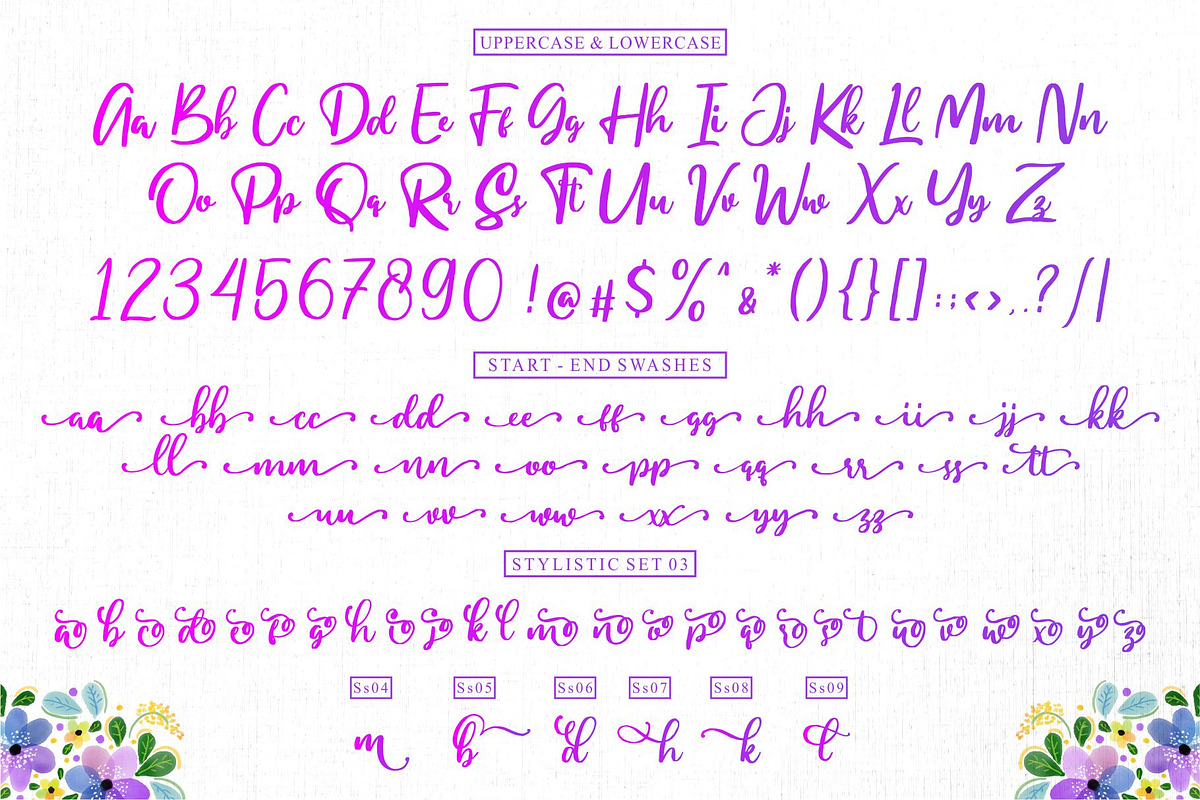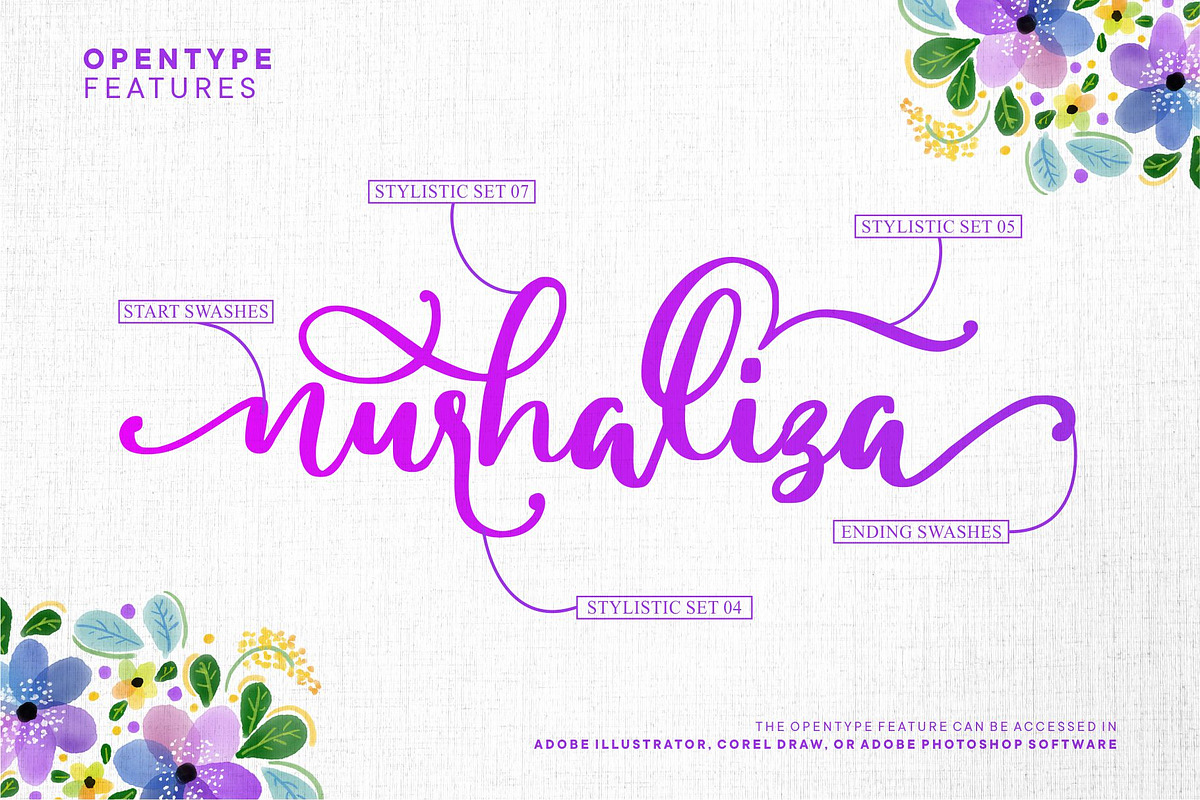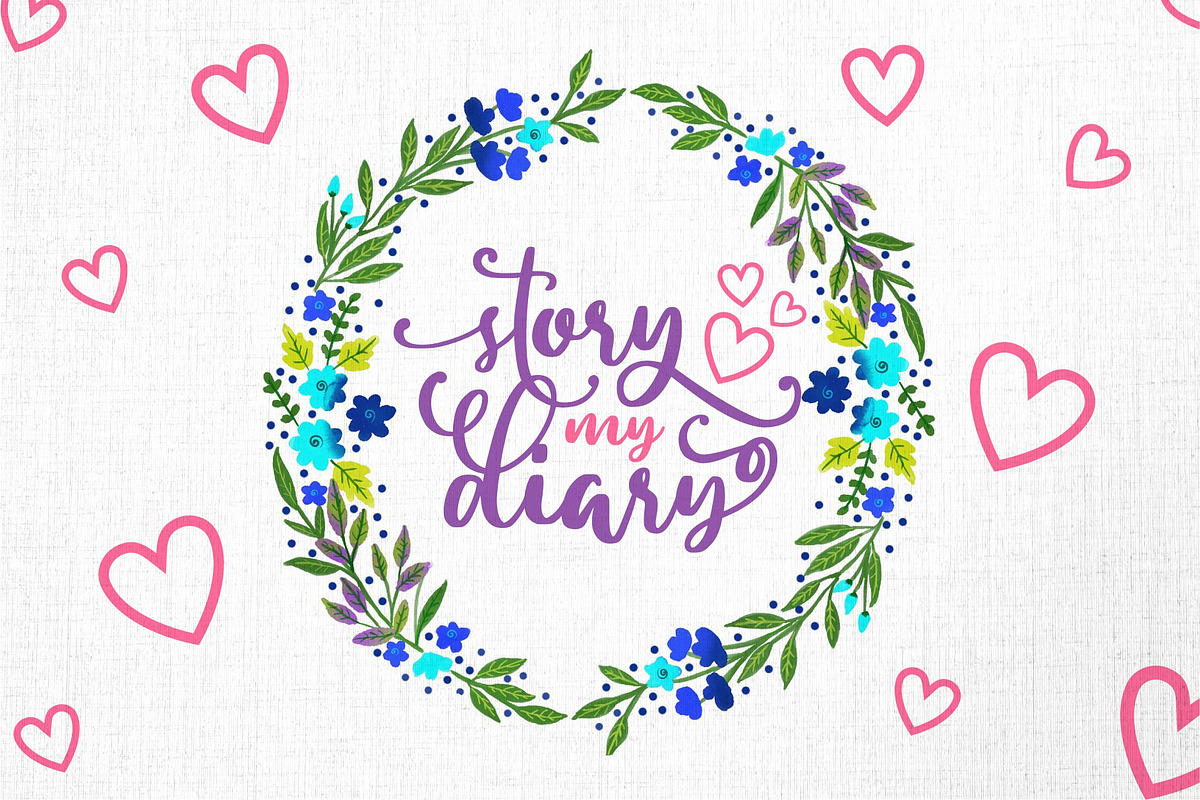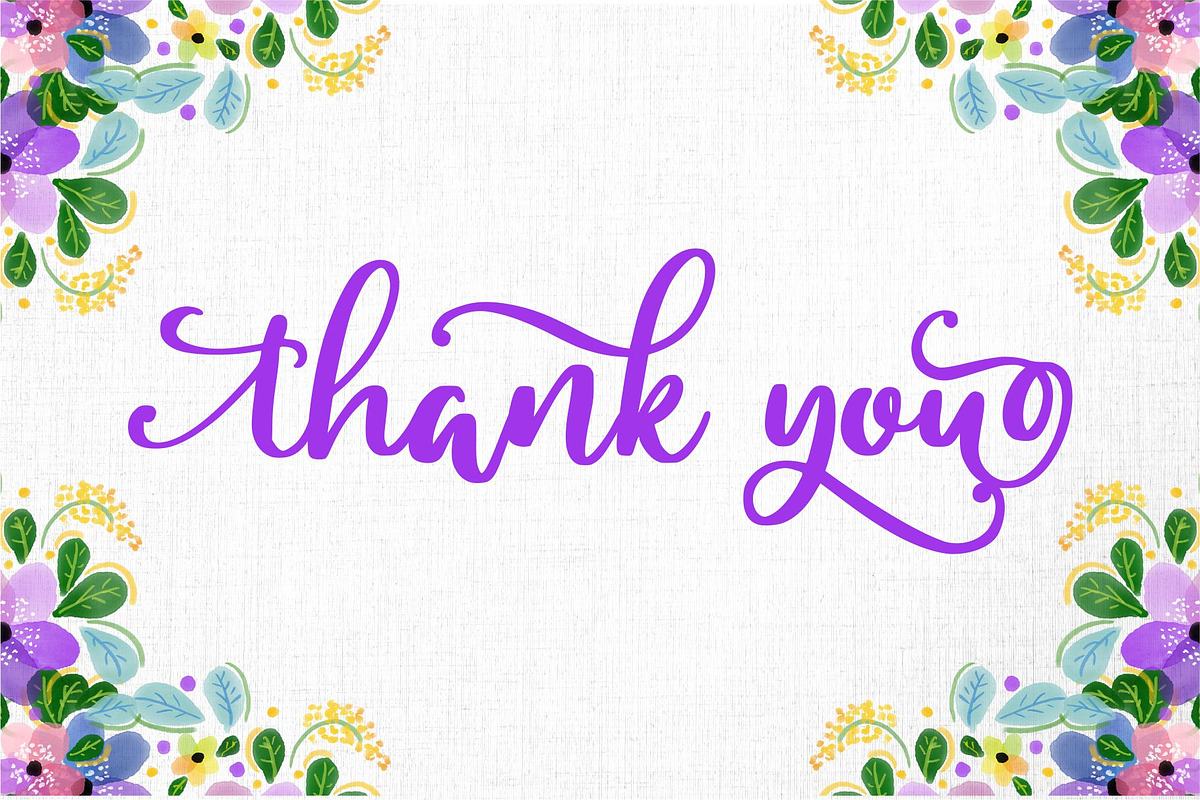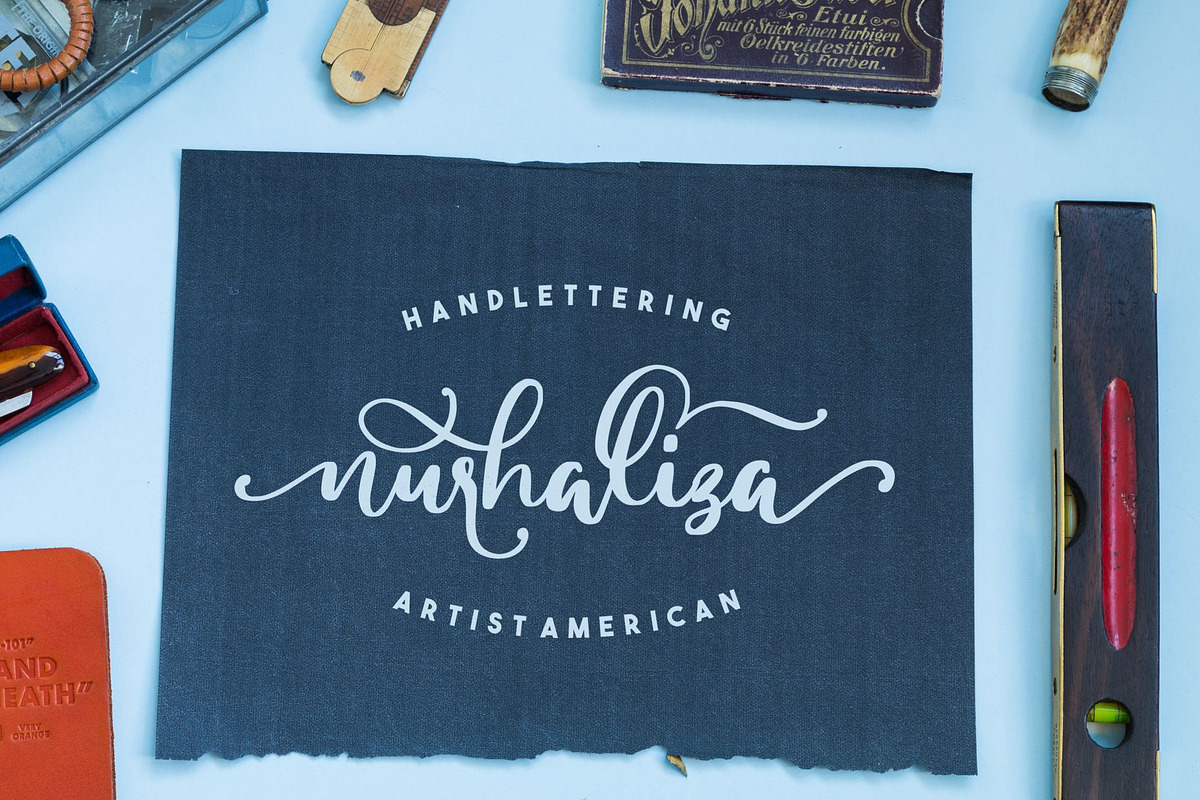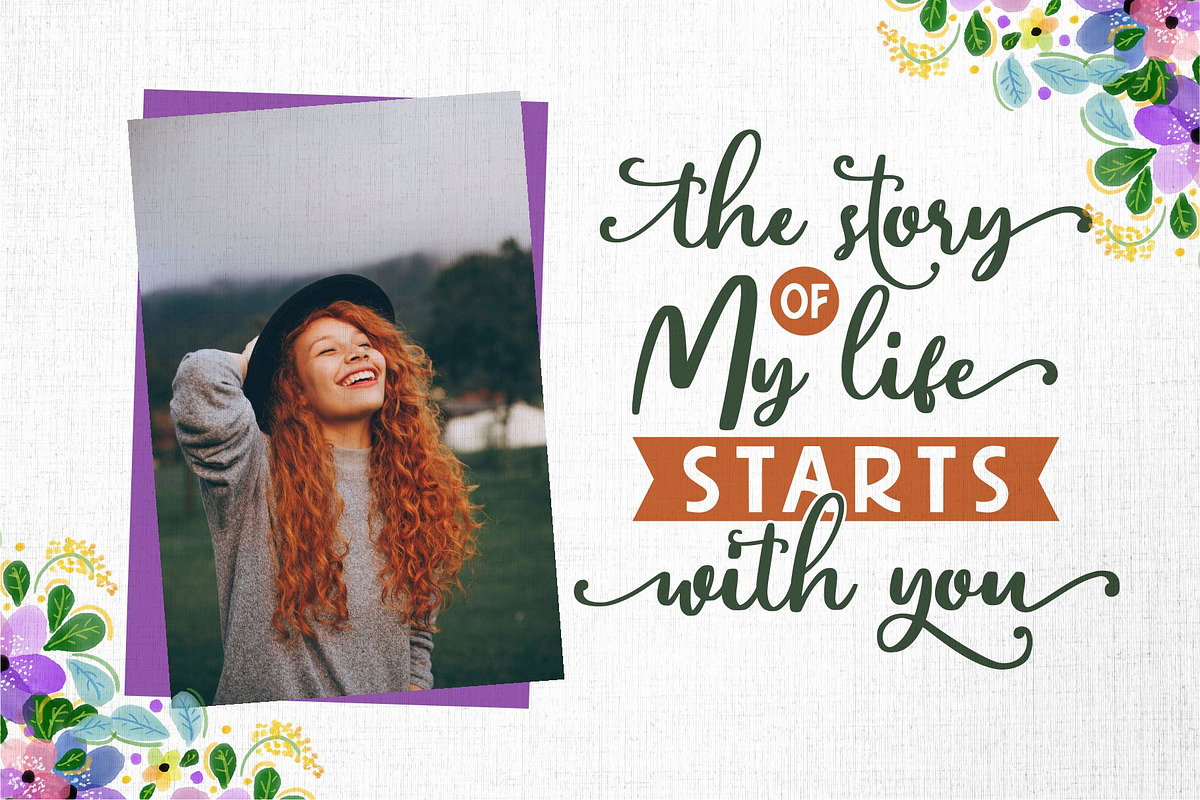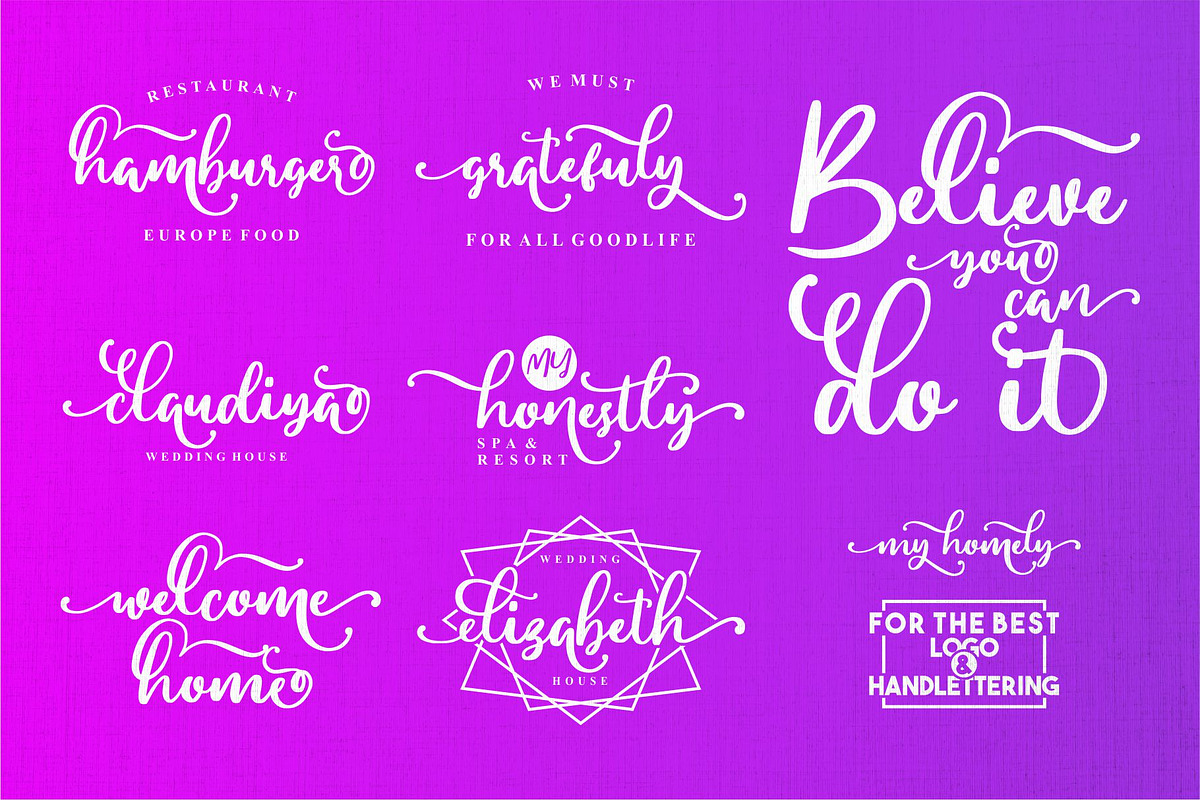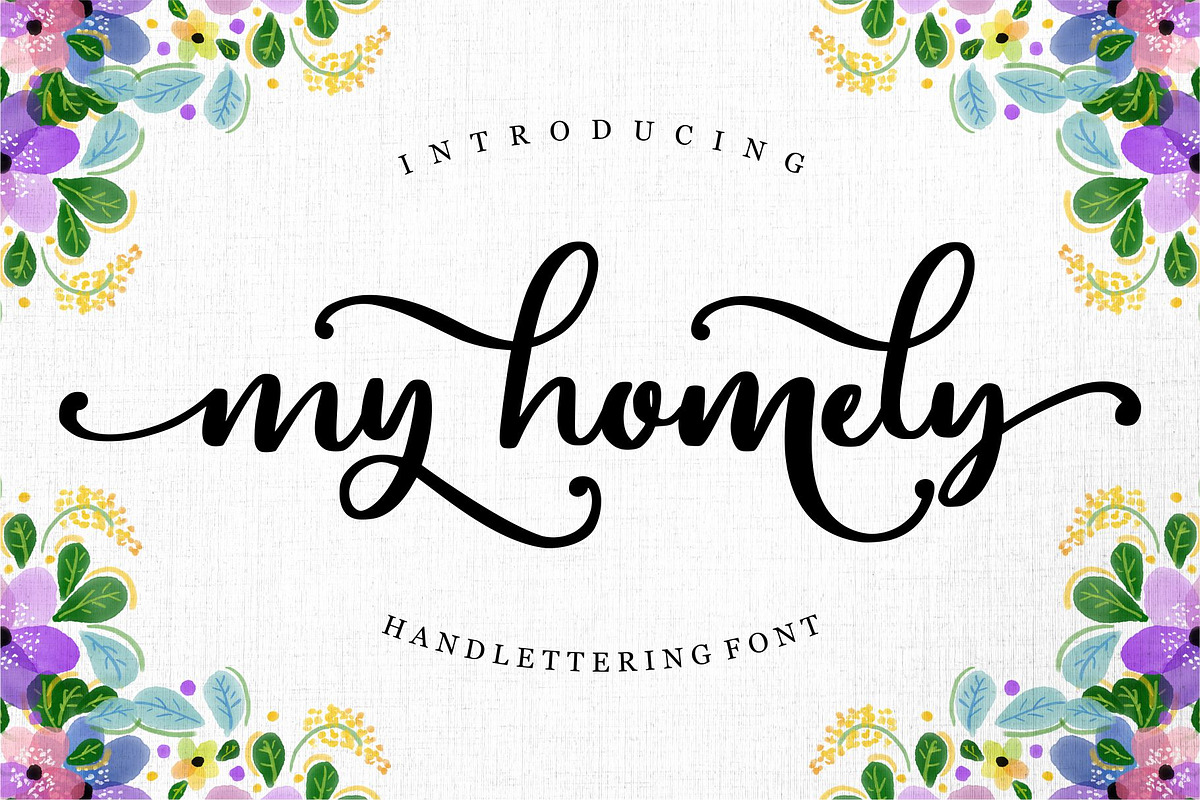
My Homely - Handlettering Font
Introducing: My Homely
My Homely is beautiful script font make with many swashes in start and ending character. Make a beautiful love swashes. This font includes full set of swash heart lowercase letters, numerals, and punctuation. Also it includes opentype Ligatures and Stylistic Set until 9 option. This is so perfect for invitations, monograms, wedding, fashion, branding, label. or logotype.
Ligature & Stylistic Set
Very great for branding, logotype, handletteing, invitations, or fashion branding.
- This font includes full set of swash heart lowercase letters, numerals, and punctuation.
- Also it includes opentype Ligatures and Stylistic Set until 9 option.